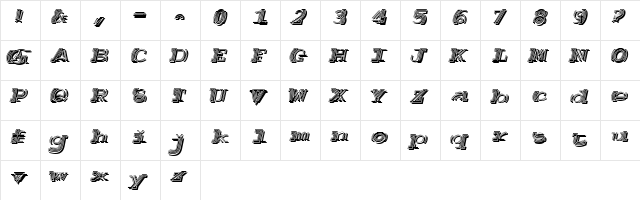
Salutatorian Deco Regular
Design Context for Salutatorian Deco Typeface
Salutatorian Deco is a composed and adaptable typeface that performs quietly and consistently across a wide range of design contexts.